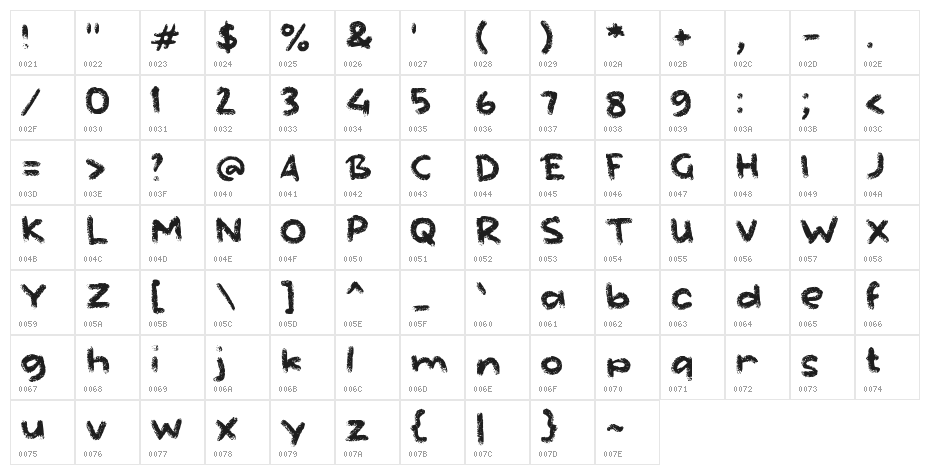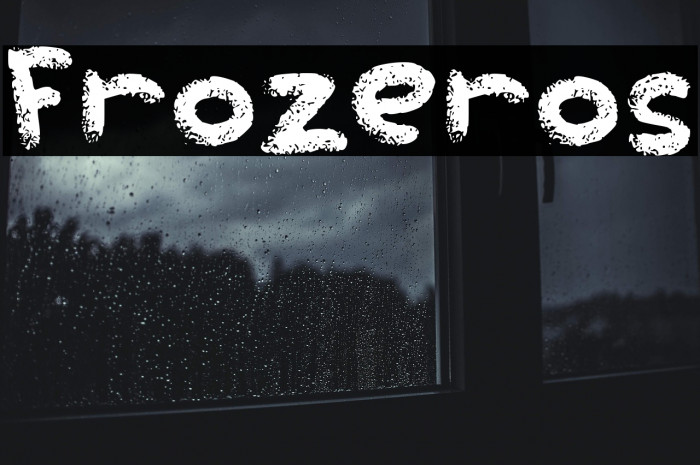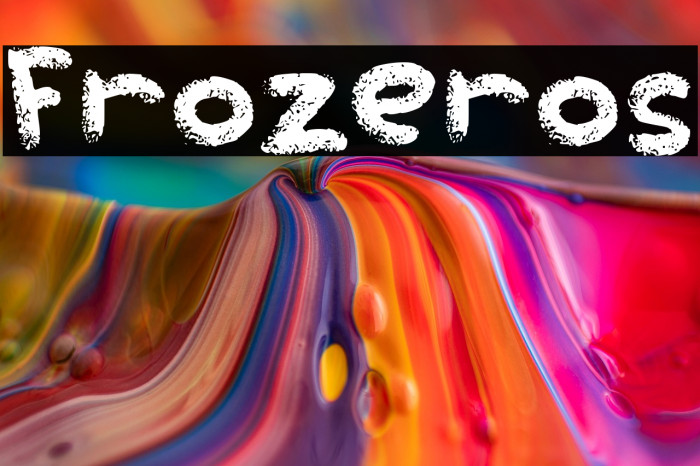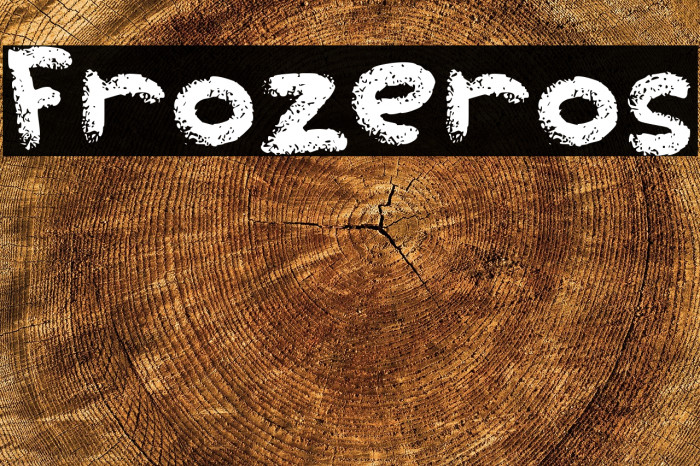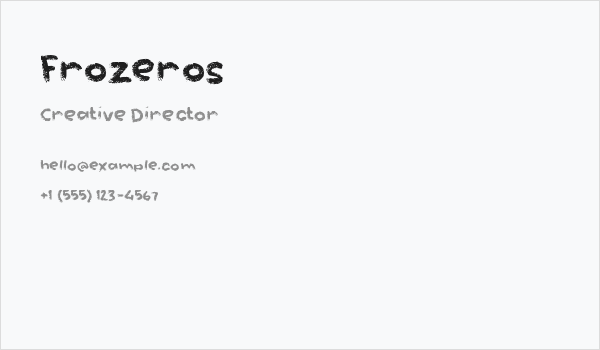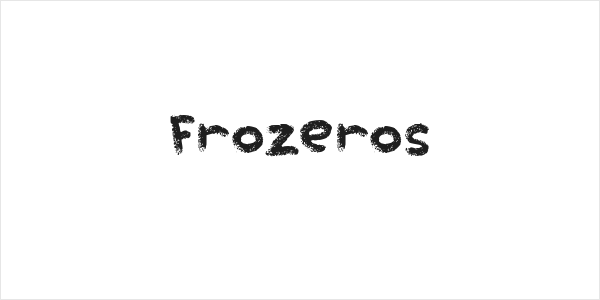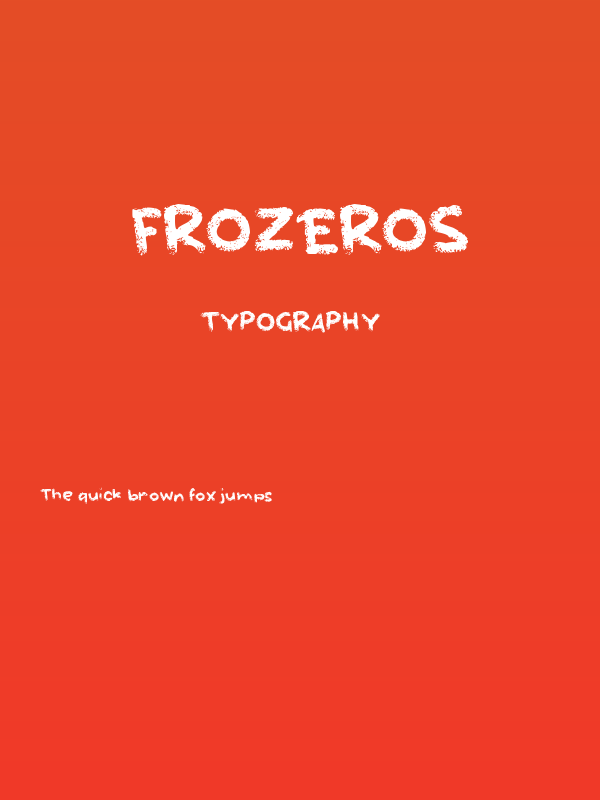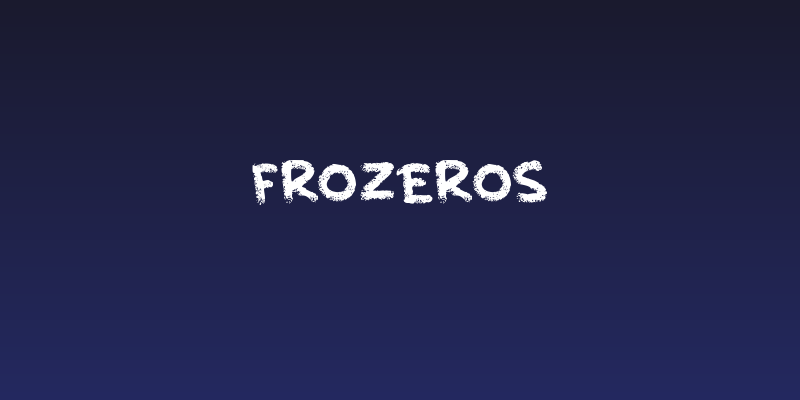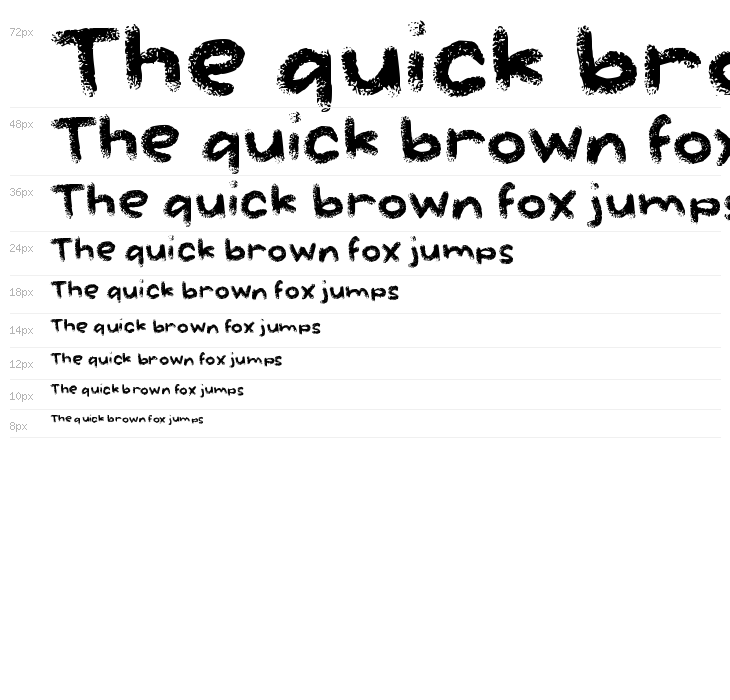
Frozeros Font
Frozeros Description
This font features a bold, textured style that mimics the appearance of letters carved from ice or snow. The rough, uneven edges give it a rugged and organic feel, making it stand out with a unique, hand-crafted look. Each character is distinct, with a playful yet bold presence that captures attention. The uppercase and lowercase letters maintain a consistent style, while the numerals and special characters complement the overall design. This font is ideal for projects that require a touch of whimsy and creativity, such as winter-themed events, playful branding, or artistic posters.
| Proposed Projects | Winter-themed events, playful branding, artistic posters, holiday cards. |